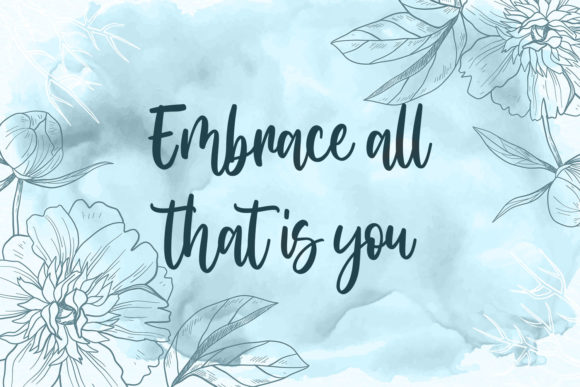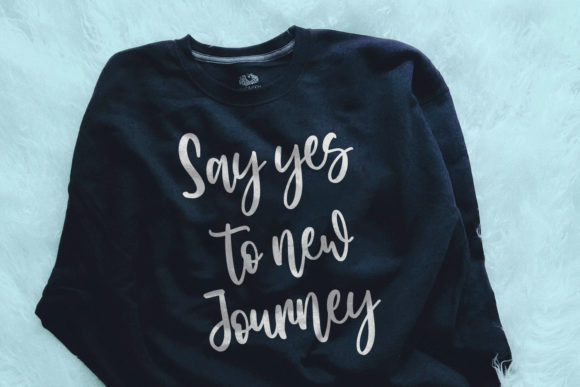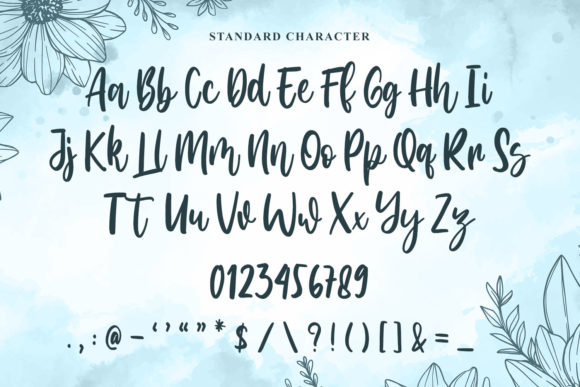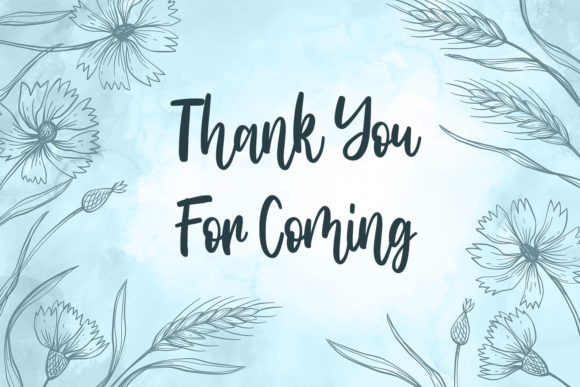
Discover the Charm of Amerta Wilson Font: A Sweet and Beautiful Script Font
Are you a designer or crafter looking for a font that can add a touch of sweetness and beauty to your projects? Look no further than Amerta Wilson Font! This stunning script font is perfect for creating gorgeous wedding invitations, beautiful stationary art, eye-catching social media posts, and much more. In this article, we’ll dive into the world of Amerta Wilson Font and explore its features, uses, and benefits.
What is Amerta Wilson Font?
Amerta Wilson Font is a sweet and beautiful script font that is sure to capture your heart. Its cute and joyful style makes it perfect for a wide range of projects, from romantic wedding invitations to fun and playful social media posts. This font is designed to add a touch of elegance and sophistication to your designs, while also conveying a sense of friendliness and approachability.
Key Features of Amerta Wilson Font
So, what makes Amerta Wilson Font so special? Here are some of its key features:
• Unique and elegant design: Amerta Wilson Font features a unique and elegant design that is sure to stand out from the crowd. Its beautiful letterforms and flowing connections make it perfect for creating stunning script text.
• Highly legible: Despite its elegant design, Amerta Wilson Font is highly legible, making it perfect for use in a wide range of projects, from body text to headings.
• Versatile: Amerta Wilson Font is an incredibly versatile font that can be used in a wide range of projects, from wedding invitations and stationary art to social media posts and more.
Uses of Amerta Wilson Font
So, what can you use Amerta Wilson Font for? The possibilities are endless! Here are some ideas to get you started:
• Wedding invitations: Amerta Wilson Font is perfect for creating gorgeous wedding invitations that will set the tone for your special day.
• Stationary art: Use Amerta Wilson Font to create beautiful stationary art, including greeting cards, thank you cards, and more.
• Social media posts: Add a touch of elegance and sophistication to your social media posts with Amerta Wilson Font.
• Branding and packaging: Use Amerta Wilson Font to create stunning branding and packaging materials, including logos, labels, and more.
Benefits of Using Amerta Wilson Font
So, why should you choose Amerta Wilson Font for your next project? Here are some benefits of using this beautiful script font:
• Adds a touch of elegance and sophistication: Amerta Wilson Font adds a touch of elegance and sophistication to your designs, making them perfect for special occasions and events.
• Conveys friendliness and approachability: Despite its elegant design, Amerta Wilson Font conveys a sense of friendliness and approachability, making it perfect for use in a wide range of projects.
• Highly versatile: Amerta Wilson Font is an incredibly versatile font that can be used in a wide range of projects, from wedding invitations to social media posts.
In conclusion, Amerta Wilson Font is a sweet and beautiful script font that is perfect for designers and crafters looking to add a touch of elegance and sophistication to their projects. With its unique and elegant design, highly legible letterforms, and versatile uses, Amerta Wilson Font is sure to become a favorite in your font collection. So why wait? Download Amerta Wilson Font today and start creating stunning designs that will leave a lasting impression!